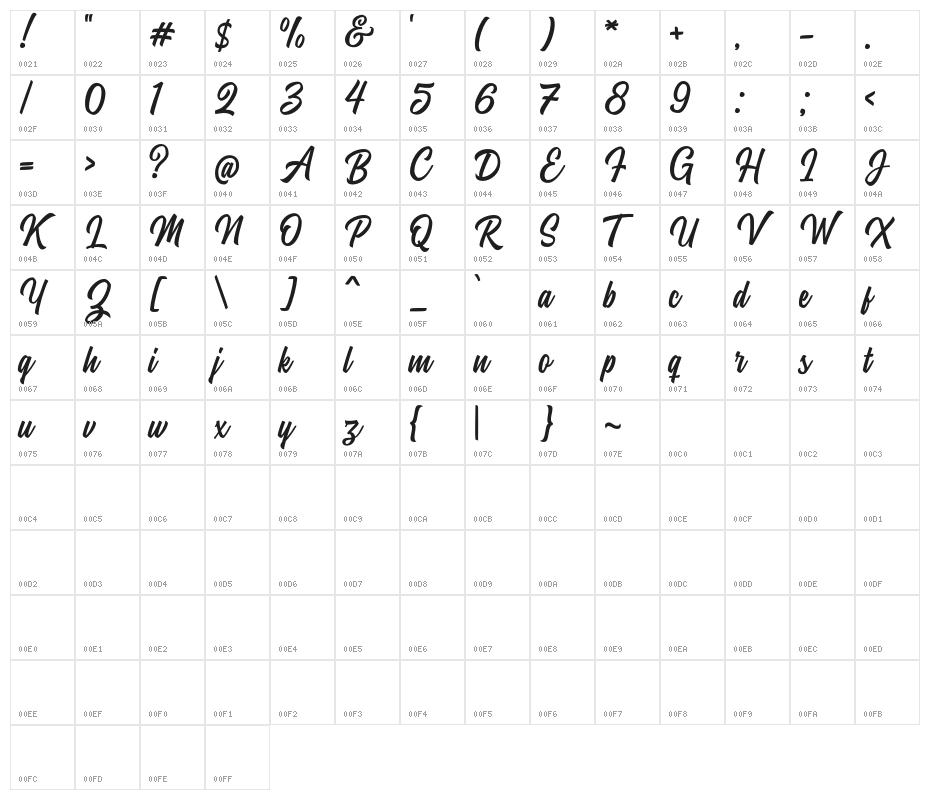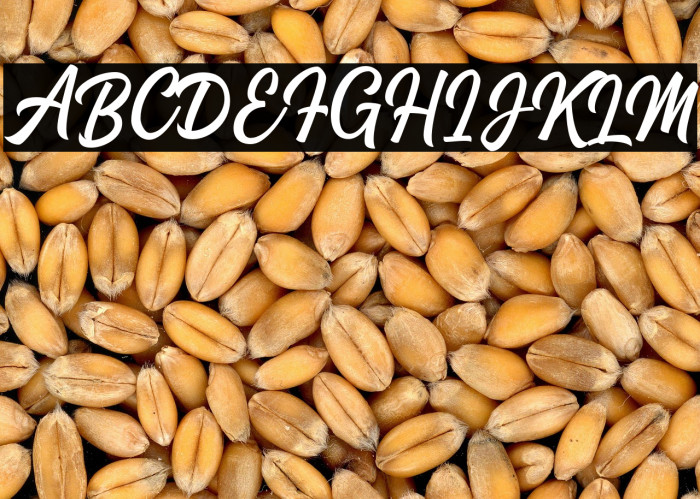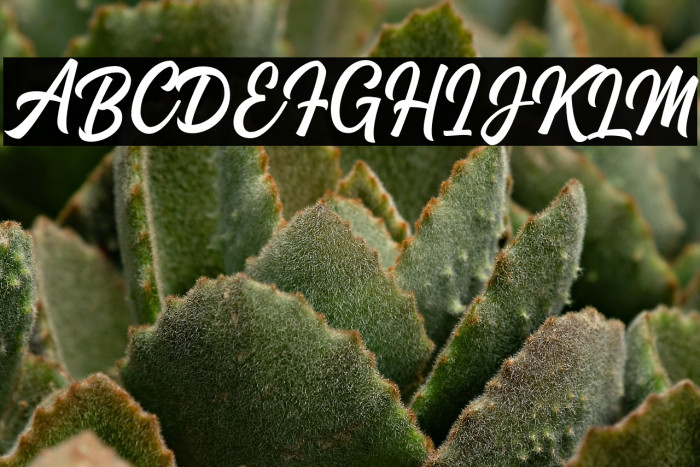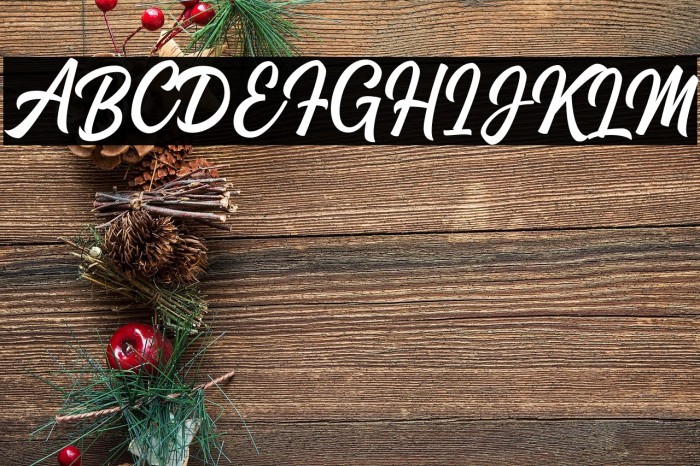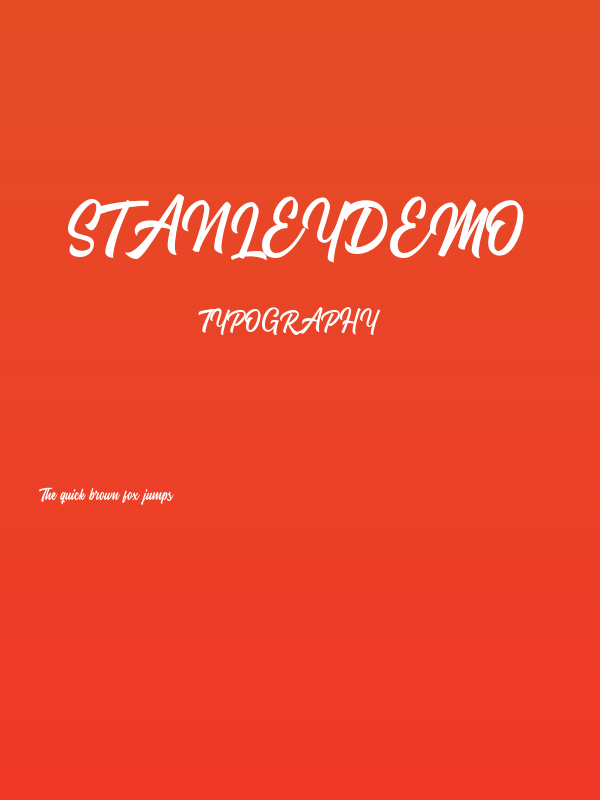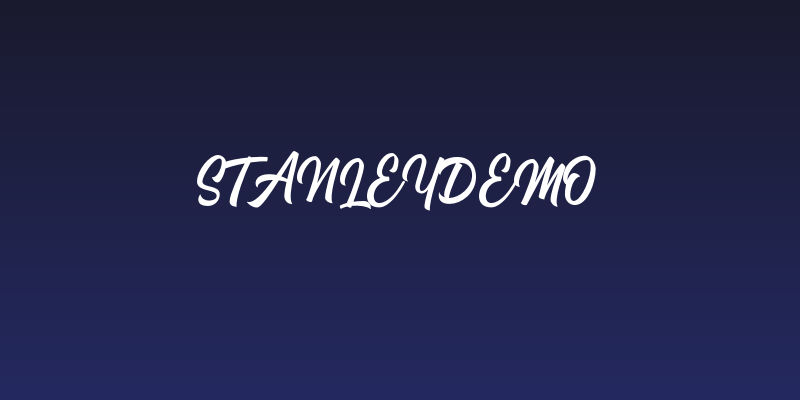
StanleyDemo Font
StanleyDemo Description
This font features a bold and dynamic script style, characterized by its flowing, cursive letterforms. The uppercase letters exhibit a strong presence with their sweeping curves and elegant strokes, while the lowercase letters maintain a consistent fluidity that enhances readability. The numerals are equally expressive, with a playful yet sophisticated design that complements the overall aesthetic. Special characters are designed with the same attention to detail, ensuring a cohesive look across all glyphs. The font's energetic and stylish appearance makes it suitable for a variety of creative applications.
| Proposed Projects | Ideal for branding, invitations, signage, and any project requiring a stylish, personal touch. |